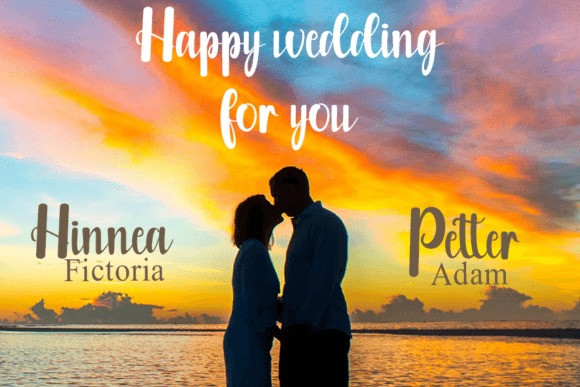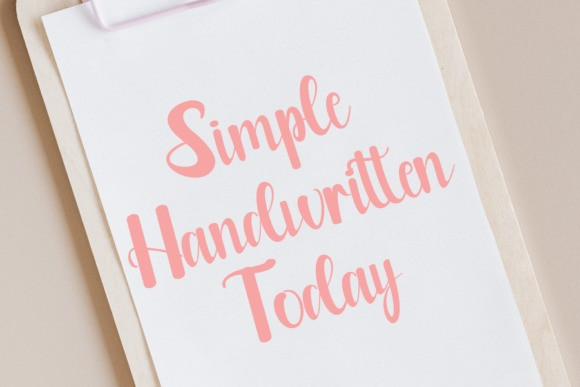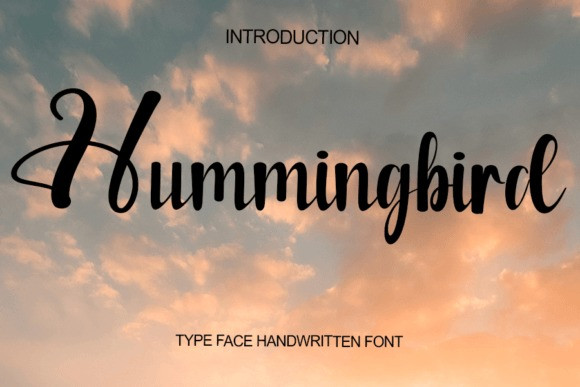
Hummingbird Script Font
Hummingbird Script Font is a magical script font carefully created with a touch of elegance. Whether you’re looking for fonts for Instagram or calligraphy scripts for DIY projects, this font will turn any creative idea into a true piece of art!